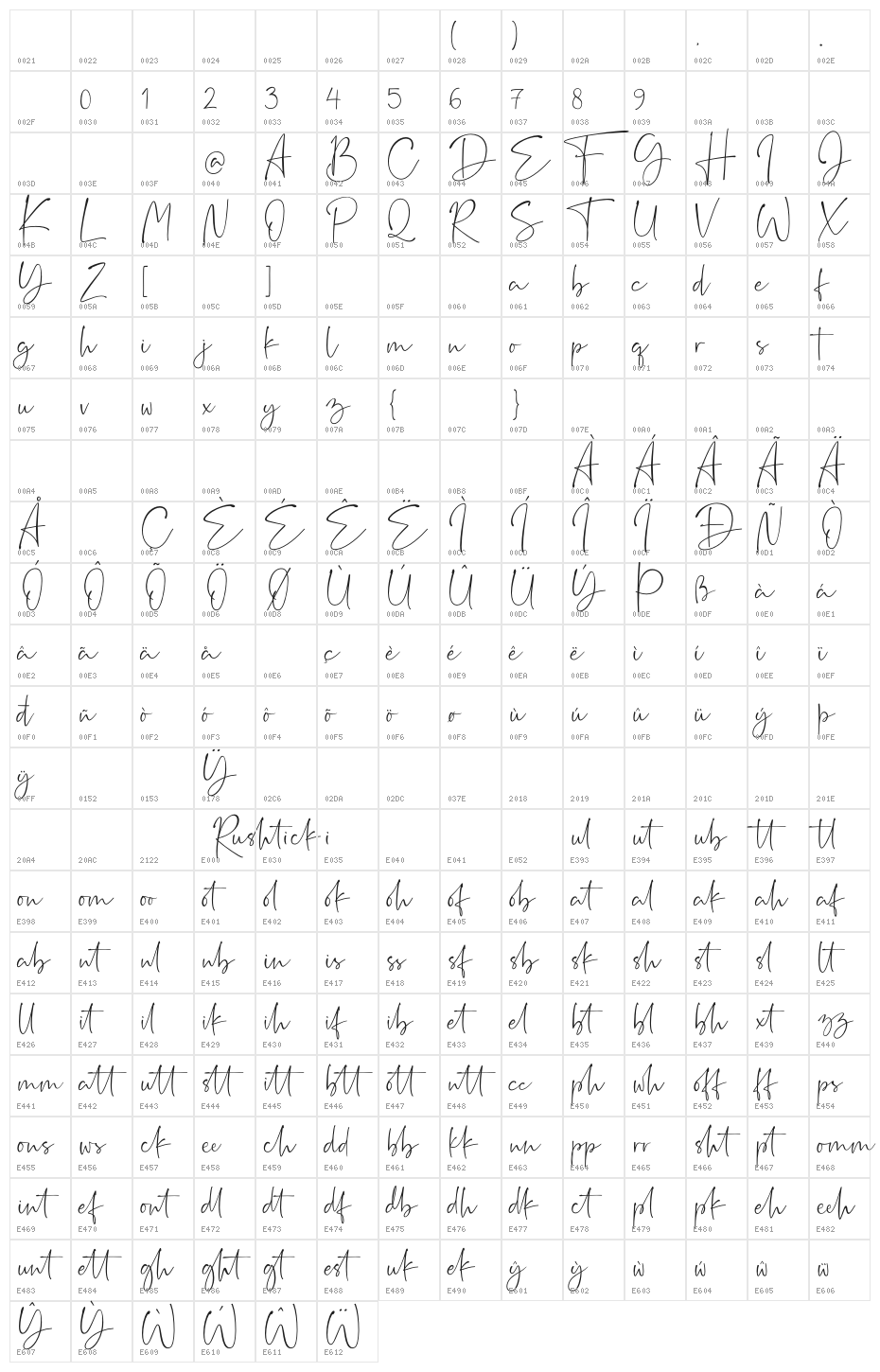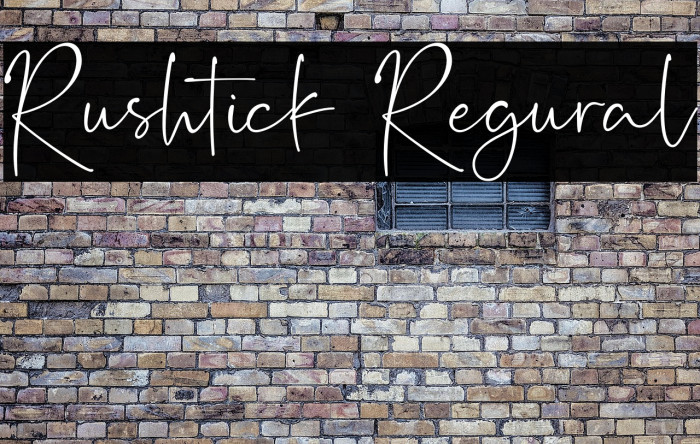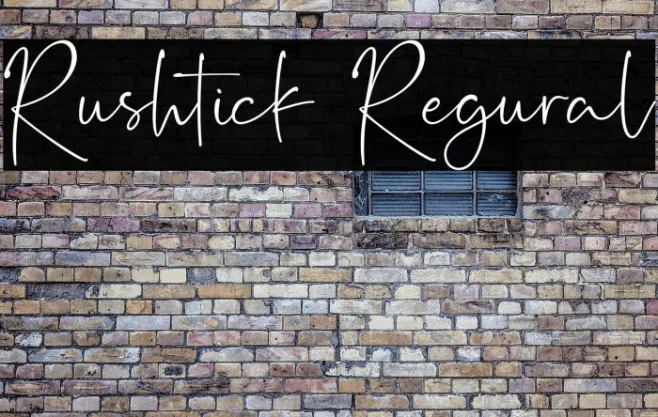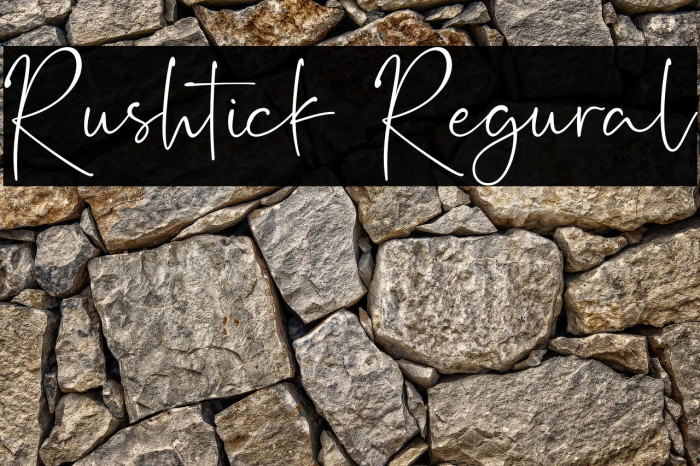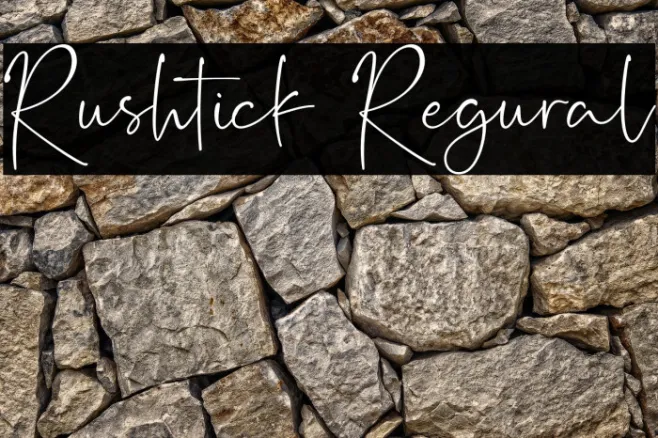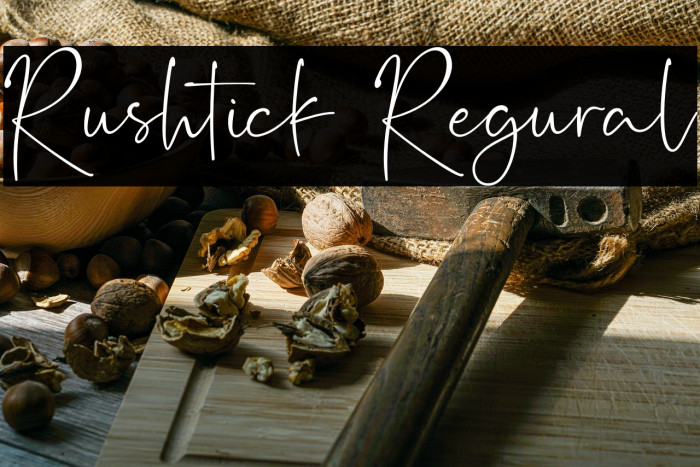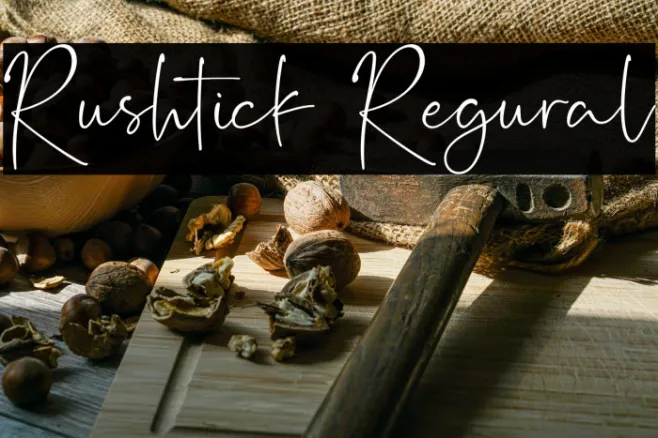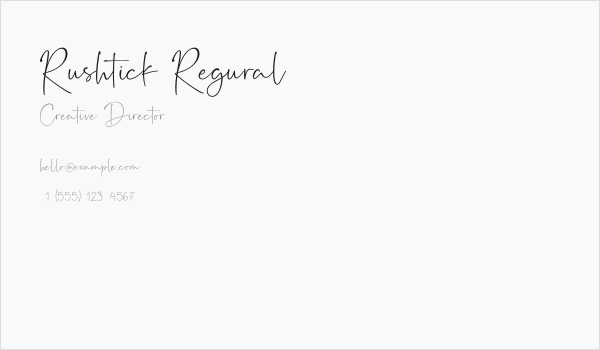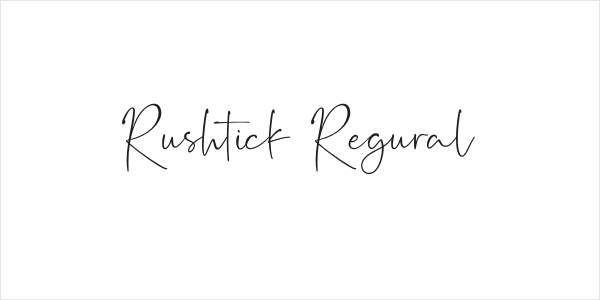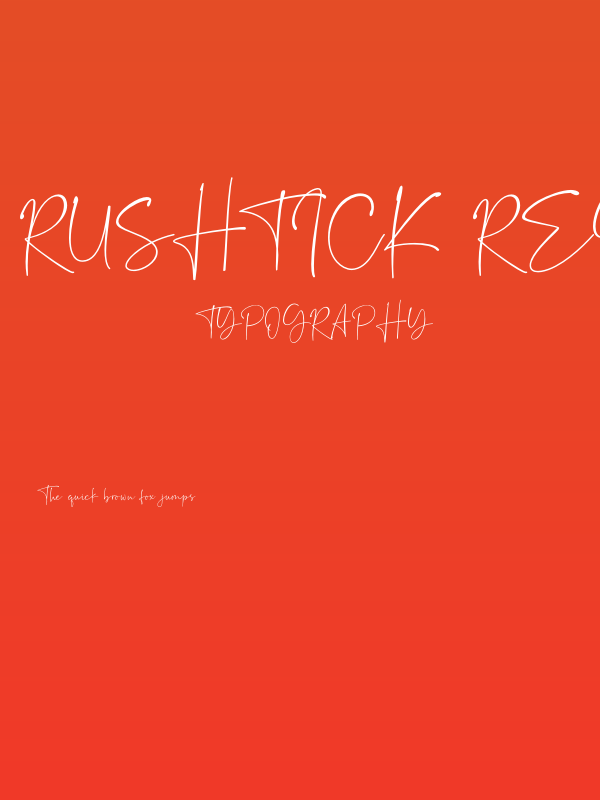
Rushtick Regural Font
Rushtick Regural Description
This font features a handwritten, cursive style with a fluid and elegant appearance. The uppercase letters are tall and slender, with a slight slant that adds a dynamic flow. Lowercase letters maintain a consistent stroke width, contributing to a harmonious and cohesive look. The numerals are clear and legible, matching the overall aesthetic with their rounded and slightly elongated forms. Special characters are integrated seamlessly, enhancing the font's versatility. The design exudes a sense of personal touch and creativity, making it suitable for projects that require a personal or artistic flair.